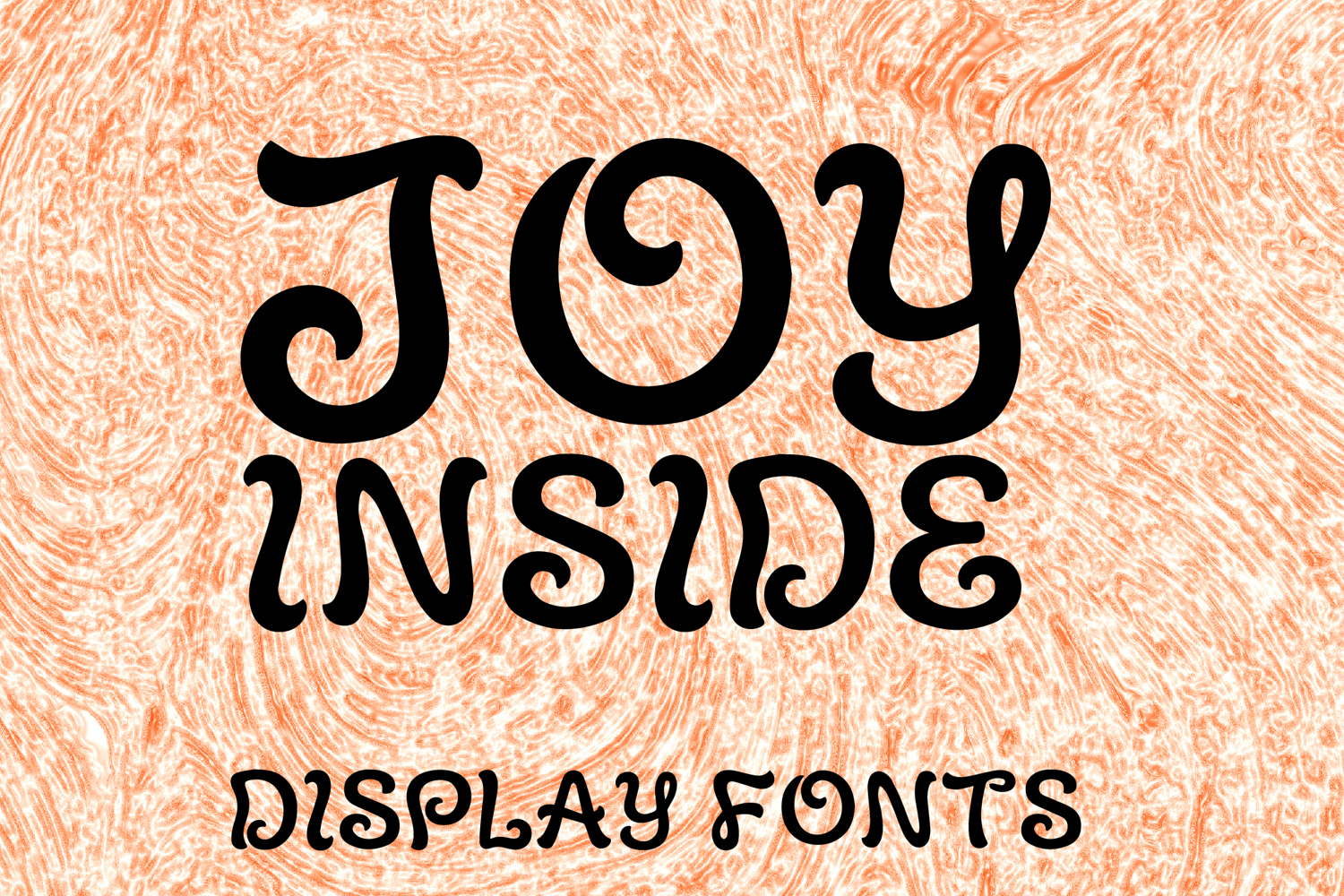
JOY INSIDE
JOY INSIDE is a whimsical display font with a bold decorative style and playful retro charm. Its uppercase letterforms feature soft thick strokes, rounded edges, and lively spiral curls that create a fun, cheerful, and eye-catching personality. Designed with uppercase letters A–Z and numbers 0–9, JOY INSIDE is perfect for branding, posters, packaging, invitations, quotes, social media graphics, and creative projects that need a happy and memorable statement.